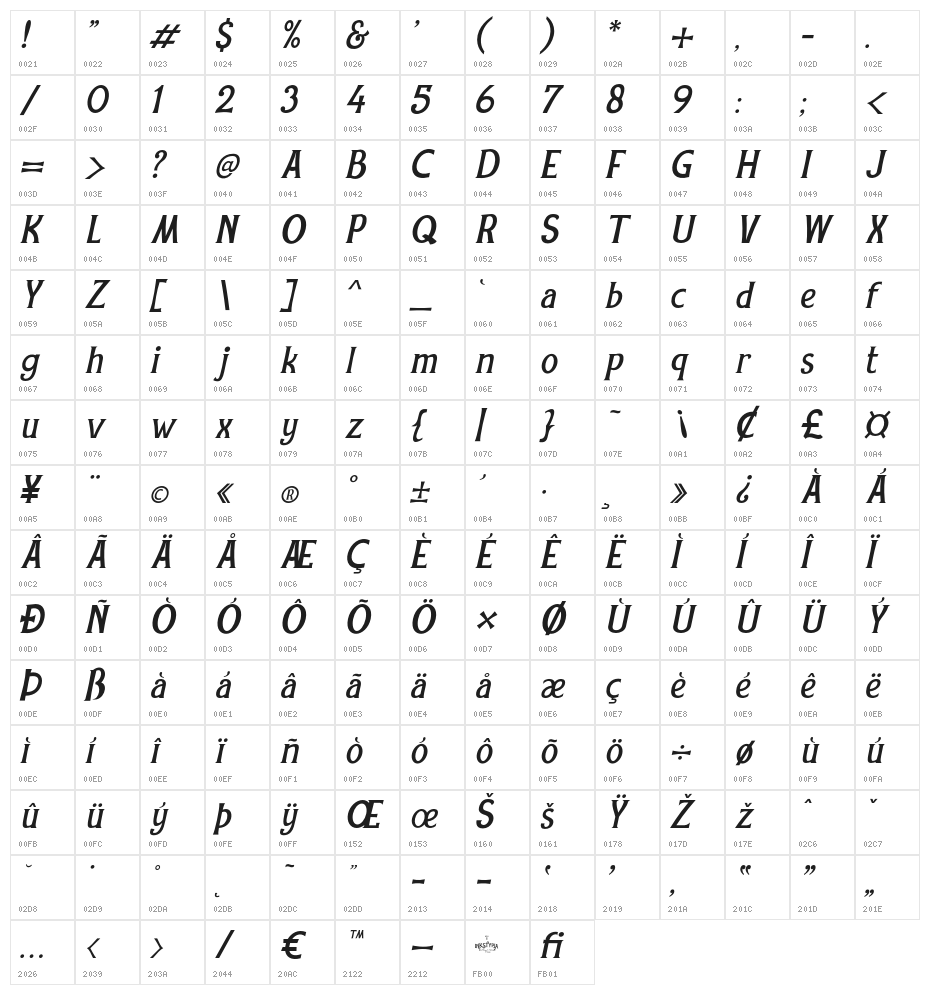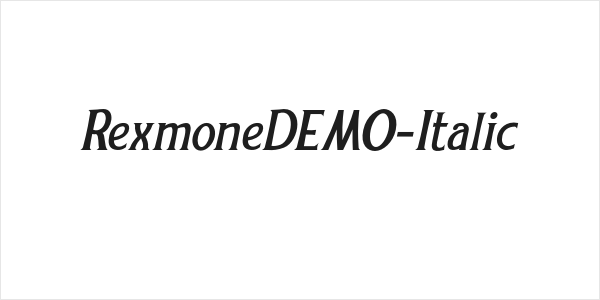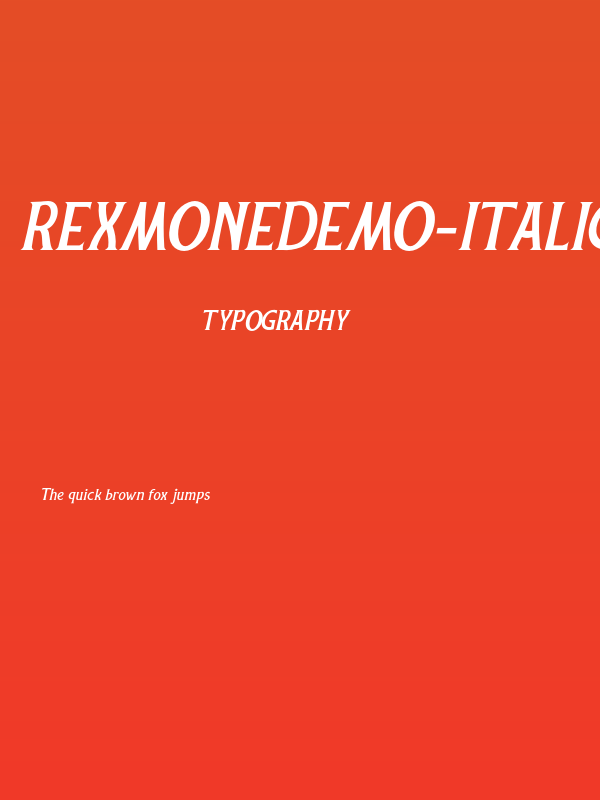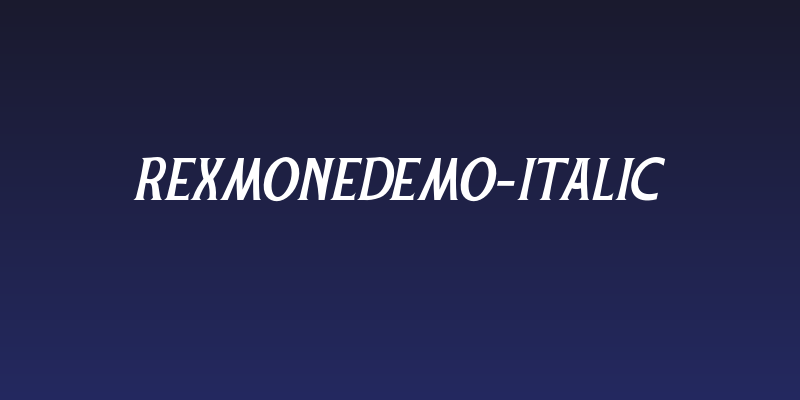
RexmoneDEMO-Italic Font
RexmoneDEMO-Italic Description
This font features a dynamic and elegant italic style, characterized by its smooth curves and slightly slanted letters. The uppercase letters are bold and commanding, while the lowercase letters maintain a consistent flow with a touch of flair. The numerals are clear and distinct, complementing the overall aesthetic. Special characters are designed with the same attention to detail, ensuring a cohesive look across all glyphs. The font's design is both modern and timeless, making it versatile for various applications.
| Use Case | Headlines, Logos, Editorial design |
| Proposed Projects | Ideal for branding projects, elegant invitations, editorial design, and stylish advertisements. |